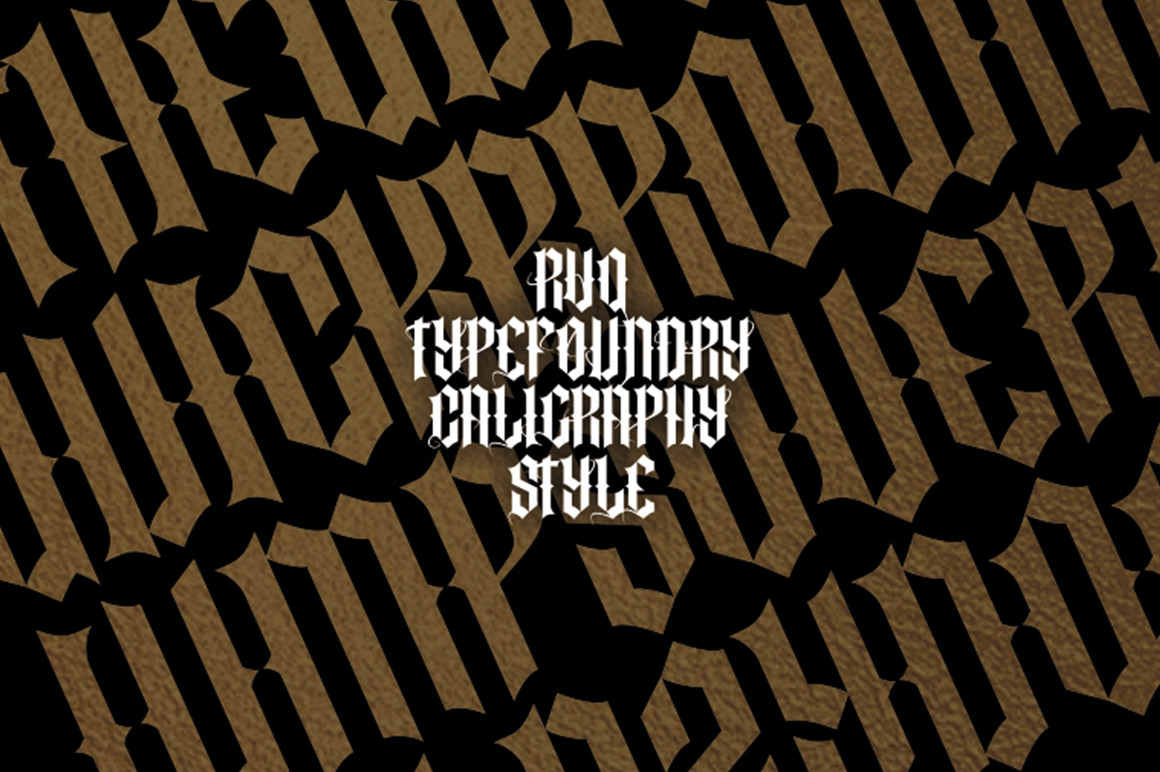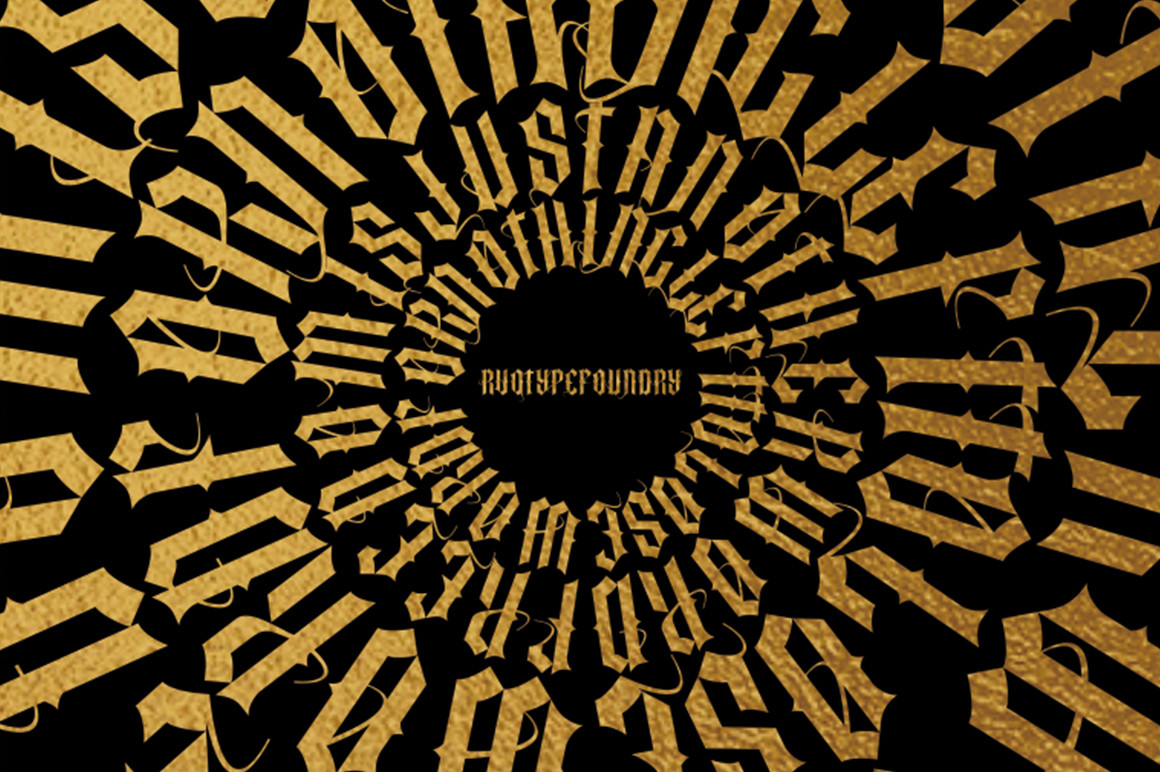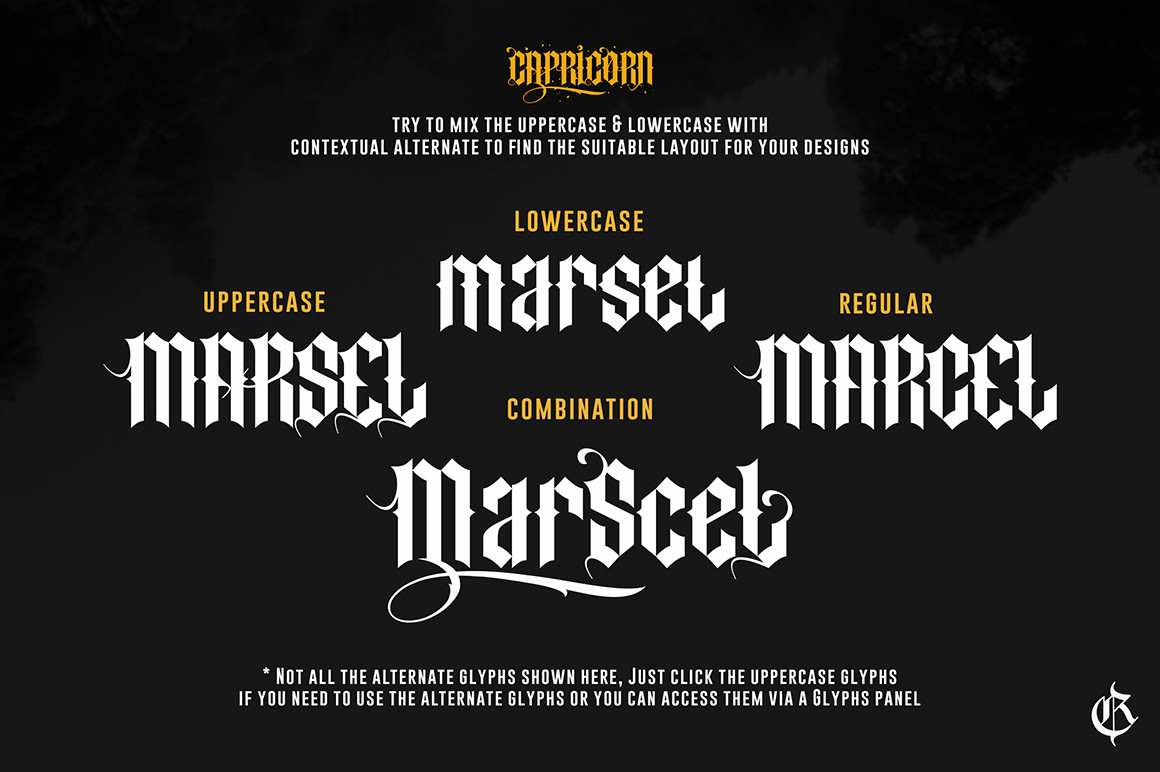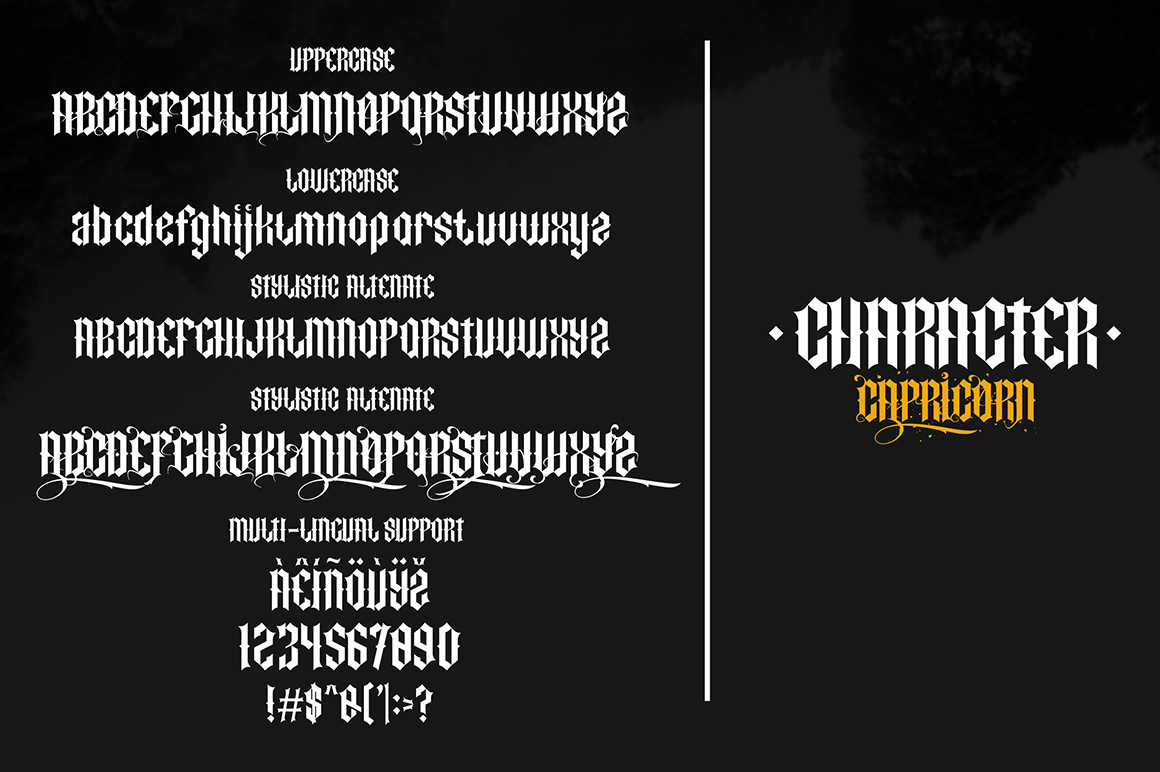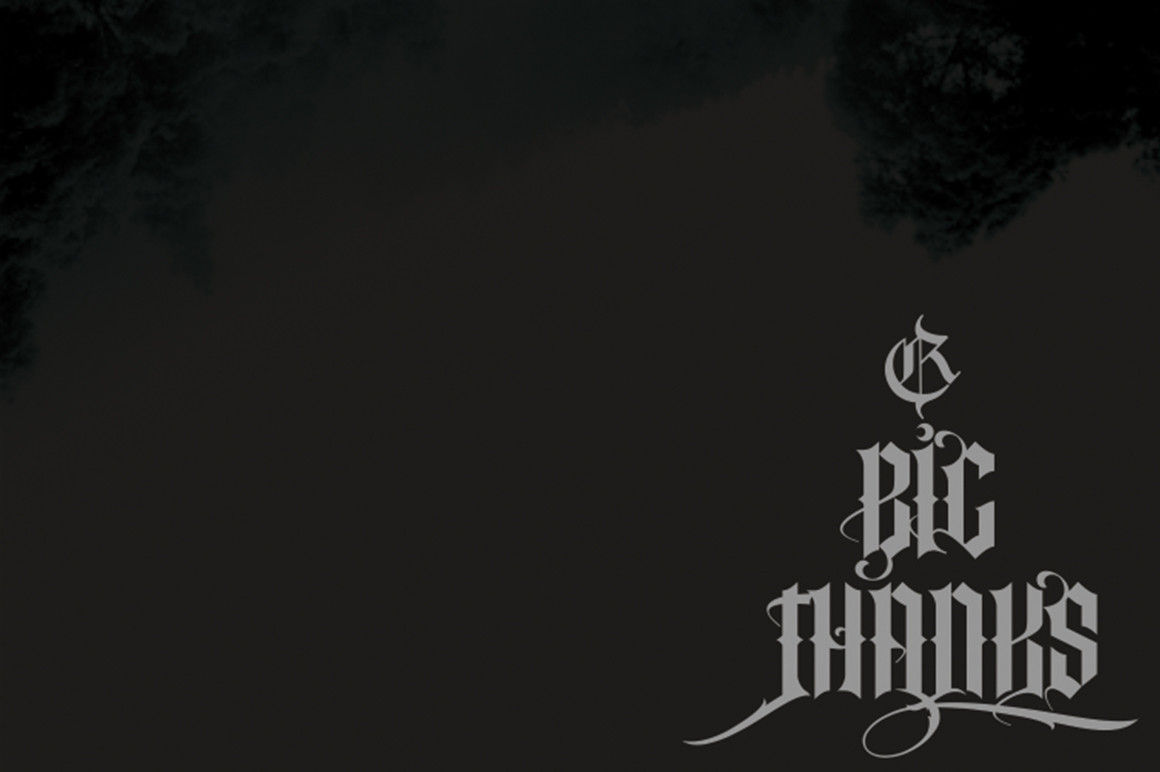
Capricorn Font
About Capricorn Font
Capricorn is a classy, elegant, and vintage feel blackletter font. It will definitely help you create the most impressive design that will inspire power and sophistication!